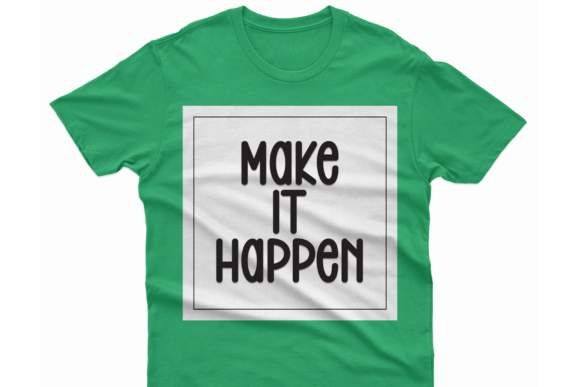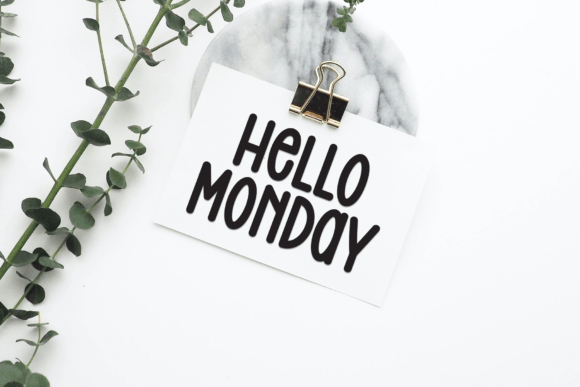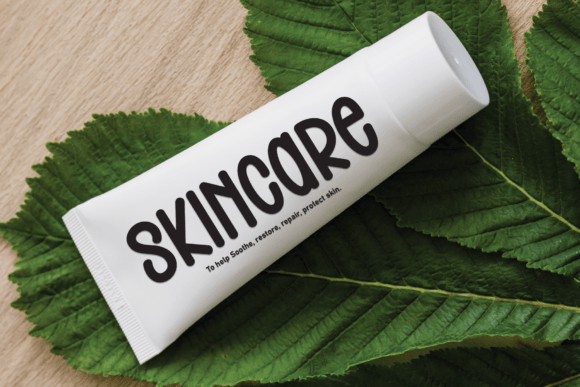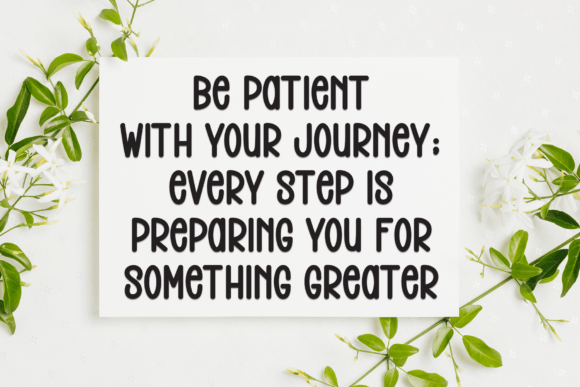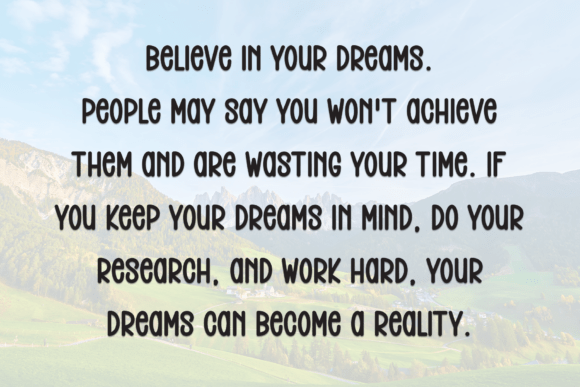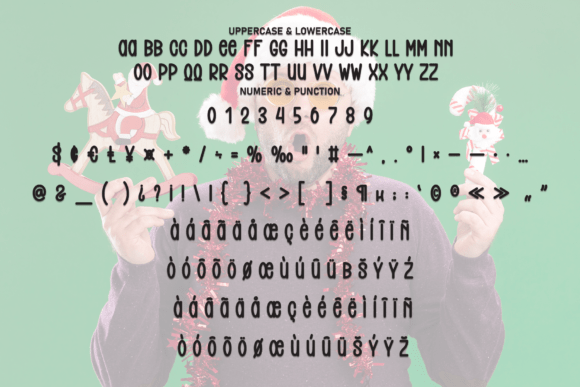
Unwrap the Magic of Grinchmas Font: Where Whimsy Meets Elegance
As designers, we’ve all been there – staring at a blank page, searching for the perfect font to bring our creative vision to life. It’s that moment of inspiration when everything falls into place, and the perfect typeface appears. For many, that moment arrives with the discovery of our enchanting Grinchmas Font. This captivating, handwritten display font seamlessly weaves together charm and practicality, making it an ideal choice for wedding invitations, personalized cards, and any other design project that requires a touch of elegance.
What sets Grinchmas Font apart is its unique ability to effortlessly elevate every design, transforming each creative endeavor into an irresistibly compelling masterpiece. As designers, we understand the importance of finding the perfect font to convey our message, and Grinchmas Font is an invaluable asset in our toolkit. Whether you’re a seasoned pro or just starting out, this font is sure to bring a dash of whimsy and magic to your work.
Key Features of “Grinchmas Font”
- Font Family: A custom-designed font family with a unique, grumpy twist on traditional holiday typography.
- Character Set: Includes a wide range of characters, including uppercase and lowercase letters, numbers, punctuation, and special symbols, as well as holiday-themed glyphs and ornaments.
- Unique Characteristics: Features a distinctive, grumpy aesthetic with a mix of bold and italic styles, adding a touch of humor and whimsy to holiday designs.
Grinchmas Font Review
Overall, I’d say the Grinchmas Font is a decent choice for those who want a playful, festive font for their holiday projects. ✨ It’s got a fun, whimsical feel to it that’s sure to bring some cheer to your designs.
- Unique character set: The Grinchmas Font comes with a range of special characters and symbols that are perfect for adding a touch of holiday magic to your designs.
- Fun, expressive style: The font’s irregular lines and quirky letterforms make it perfect for creating eye-catching headlines and titles.
- High-resolution glyphs: The font includes high-resolution glyphs for both web and print use, ensuring that your designs look sharp and clear.
- Limited font weights: The Grinchmas Font only comes in a few font weights, which may limit your design options.
- No italic or oblique styles: If you need to use italic or oblique text in your design, you may need to look elsewhere.
- May not be suitable for body text: While the font is perfect for headlines and titles, it may be a bit too playful and attention-grabbing for use in body text.
Overall, I think the Grinchmas Font is a fun and festive choice for holiday designs. While it has its limitations, it’s a great option for those who want to add a touch of whimsy to their projects.
For best results, use the Grinchmas Font in bold or italic styles to emphasize key messages or create a playful atmosphere.
Pair the font with festive colors and graphics to create a cohesive holiday design.
The Grinchmas Font is perfect for:
Creating holiday greeting cards and invitations.
Designing festive social media graphics and ads.
Developing a consistent holiday brand identity.